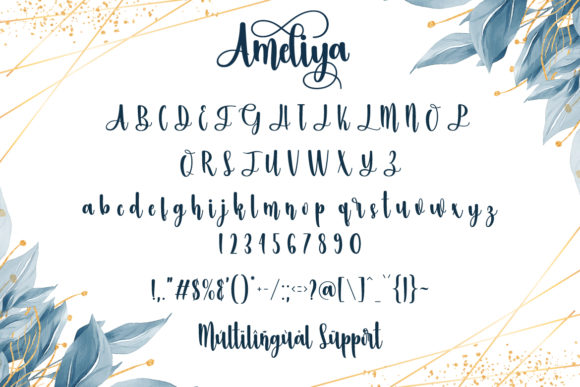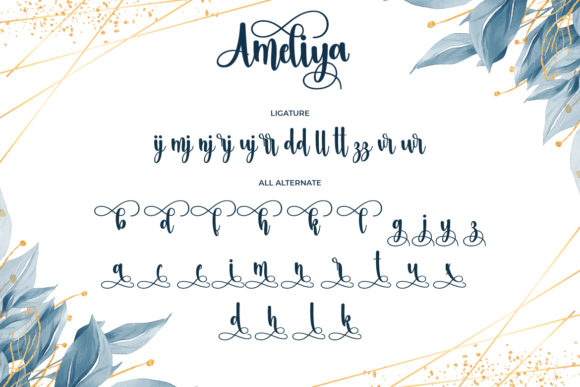
Discover the Elegance of Ameliya Font: A Perfect Choice for Creative Projects
Are you looking for a font that exudes elegance and sophistication? Look no further than Ameliya Font, a beautiful and elegant script font that is sure to capture your heart. With its authentic feel and versatility, Ameliya is perfect for a wide range of creative projects, from wedding invitations and stationery art to social media posts and greeting cards.
What Makes Ameliya Font So Special?
Ameliya Font is a stunning script font that boasts a unique and authentic feel. Its elegant curves and flowing lines make it perfect for creating beautiful and eye-catching designs. Whether you’re a designer, crafter, or DIY enthusiast, Ameliya is sure to inspire your creativity and help you create stunning visual content.
Use Ameliya Font for a Variety of Creative Projects
One of the best things about Ameliya Font is its versatility. This beautiful font can be used for a wide range of creative projects, including:
- Wedding Invitations: Create gorgeous and elegant wedding invitations that will set the tone for your special day. Ameliya’s flowing lines and elegant curves make it perfect for wedding stationery.
- Stationery Art: Add a touch of elegance to your stationery art with Ameliya Font. Create beautiful greeting cards, thank you cards, and other paper crafts that will impress your friends and family.
- Social Media Posts: Make your social media posts stand out with Ameliya Font. Create eye-catching graphics and quotes that will grab the attention of your followers and leave a lasting impression.
- Greeting Cards: Create cute and personalized greeting cards for any occasion with Ameliya Font. From birthdays to holidays, Ameliya is the perfect font for creating beautiful and heartfelt cards.
The Benefits of PUA Encoding
Ameliya Font is PUA (Private Use Area) encoded, which means that you can access all of the glyphs and swashes with ease. PUA encoding allows you to access a wide range of special characters and glyphs that are not available in standard fonts. This means that you can create even more beautiful and unique designs with Ameliya Font.
Why Designers and Crafters Love Ameliya Font
Designers and crafters love Ameliya Font for many reasons. Here are just a few:
- Elegance: Ameliya Font is incredibly elegant and sophisticated, making it perfect for creating high-end designs.
- Versatility: Ameliya can be used for a wide range of creative projects, from wedding invitations to social media posts.
- Easy to Use: Ameliya Font is PUA encoded, making it easy to access all of the glyphs and swashes.
- Unique: Ameliya Font is a unique and authentic font that will add a touch of elegance to any design.
Tips for Using Ameliya Font
Here are a few tips for using Ameliya Font:
- Experiment with Different Sizes: Ameliya Font looks beautiful in a variety of sizes, from large headings to small body text.
- Pair with Other Fonts: Ameliya Font pairs beautifully with other fonts, such as sans-serif fonts and serif fonts.
- Use Swashes and Glyphs: Take advantage of Ameliya’s PUA encoding and use the swashes and glyphs to add a touch of elegance to your designs.
Ameliya Font is a beautiful and elegant script font that is perfect for designers, crafters, and DIY enthusiasts. With its authentic feel and versatility, Ameliya is sure to inspire your creativity and help you create stunning visual content. Whether you’re creating wedding invitations, stationery art, social media posts, or greeting cards, Ameliya Font is the perfect choice.